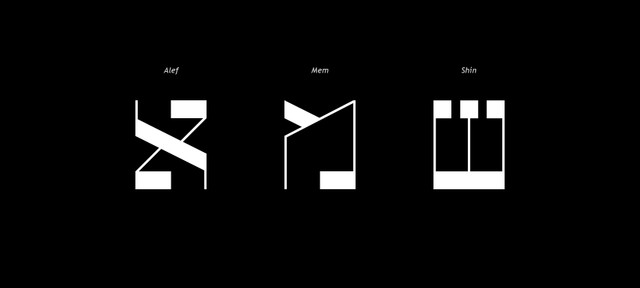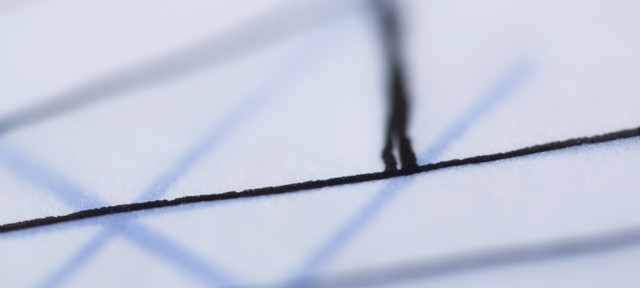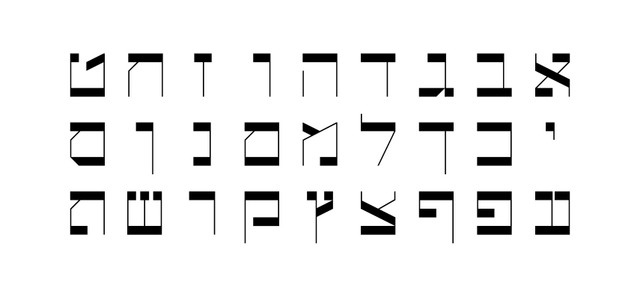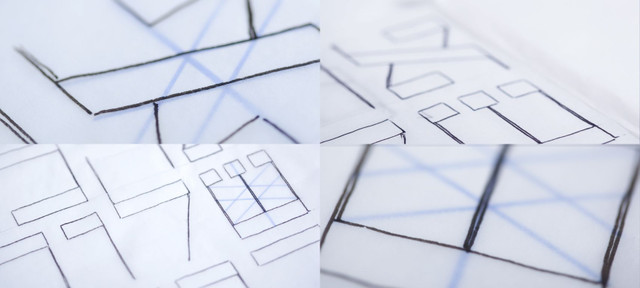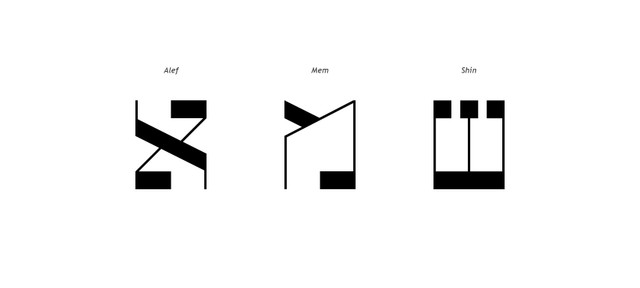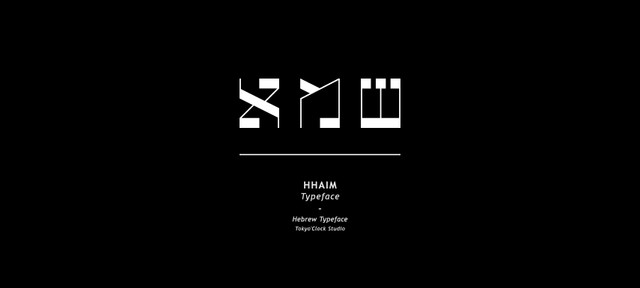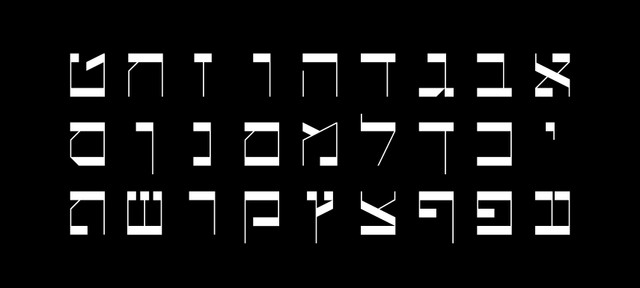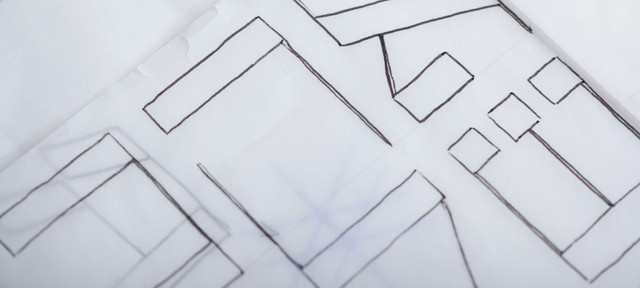
HHaim Typeface - Type Design Project - Hebrew Typography
HHaim is an Hebrew Typeface created when Tokyo o’Clock were working on a flat in Carre d’Elkano 41°22'23.2"N 2°09'48.9"E, Poble Sec neighbourhood in Barcelona, Spain. We were sharing a big work space with Hagay Haim an Hebrew translator and yoga teacher, who asked us some basic communication applications.
This project started to be a simple communication project, that evolved due to the personal relationship created, and we end designing an entire Hebrew alphabet, as a real typographic challenge of reproduce in the most faithfully way to be functionally readable and recognisable by all.